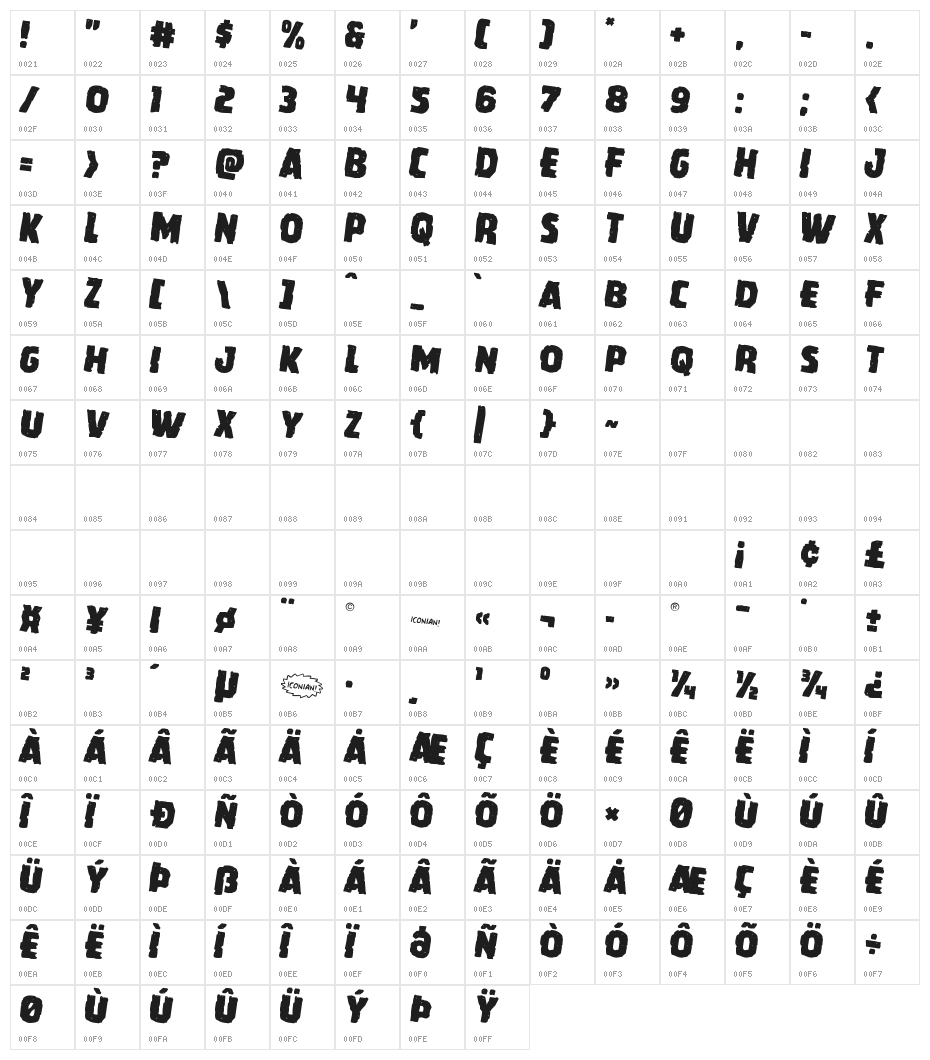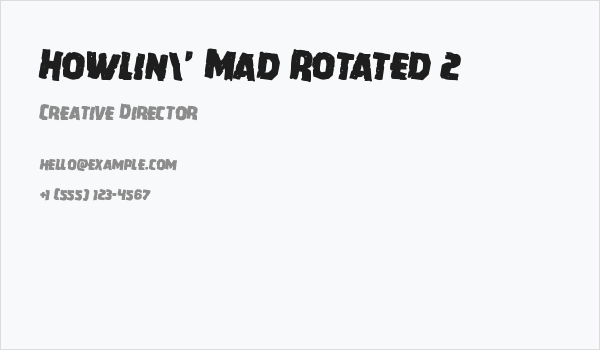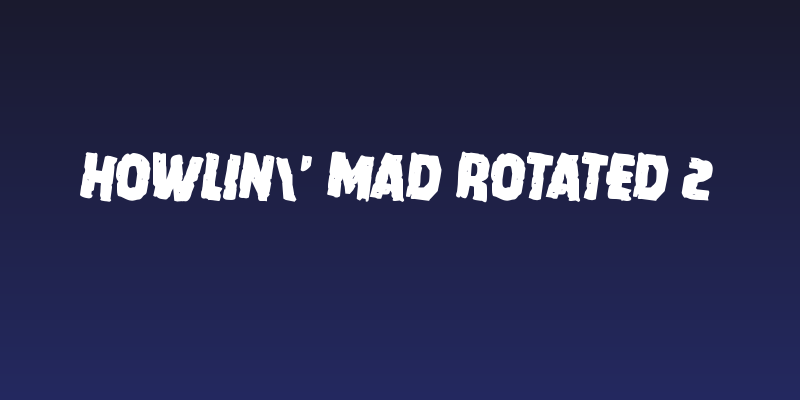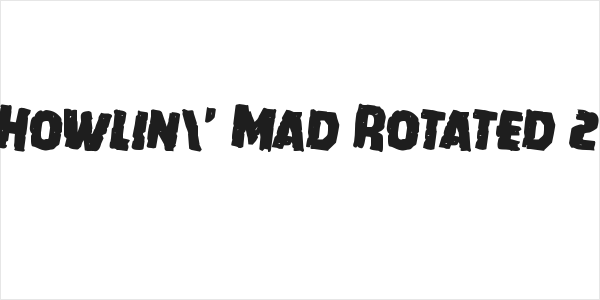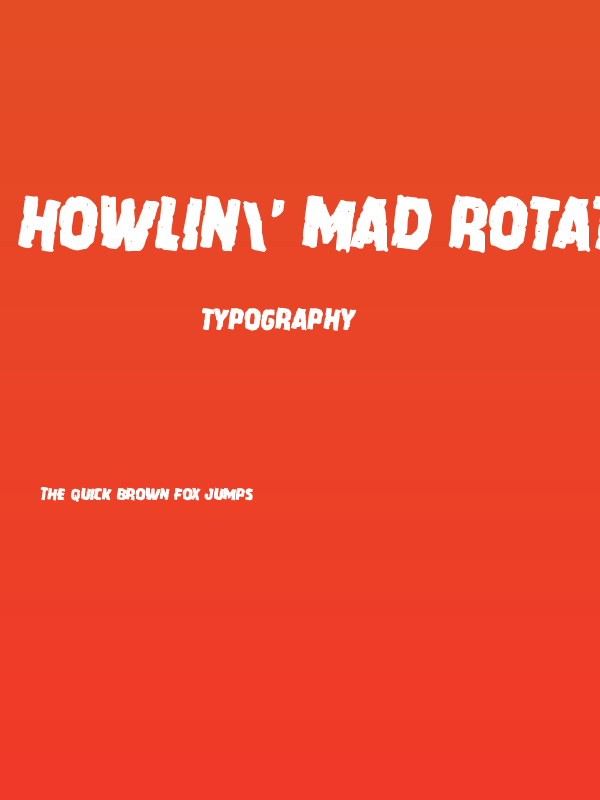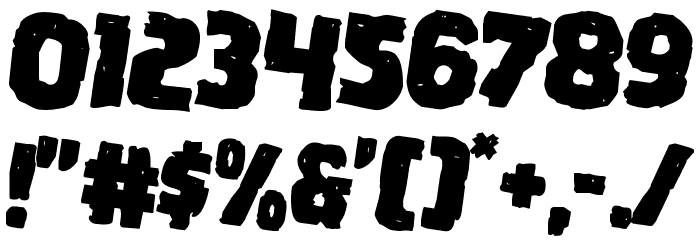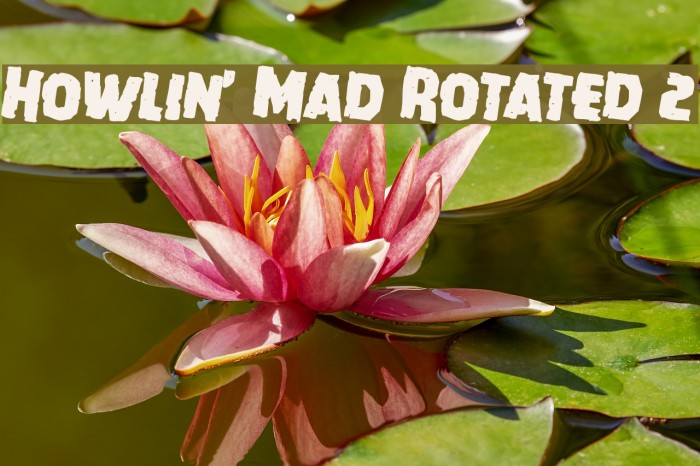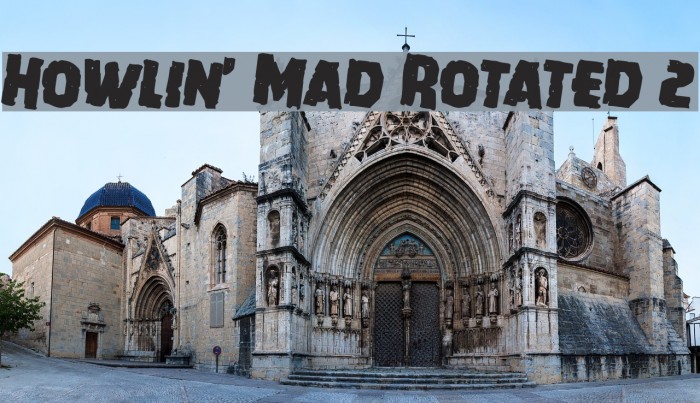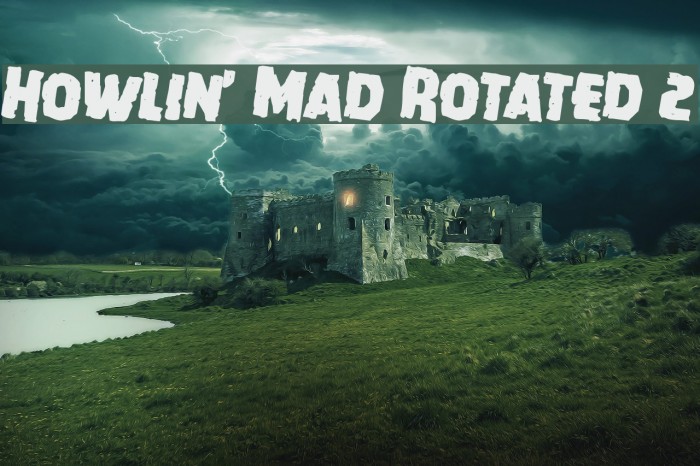
Howlin' Mad Rotated 2 Font
Howlin' Mad Rotated 2 Description
This font features a bold, rugged style with a distressed appearance, giving it a raw and energetic feel. The characters are thick and heavy, with irregular edges that create a sense of movement and dynamism. The uppercase and lowercase letters maintain a consistent weight, while the numbers and special characters follow the same bold and distressed aesthetic. This font is ideal for projects that require a strong, impactful presence, such as posters, headlines, or branding materials that aim to convey a sense of adventure or rebellion.
| Proposed Projects | Ideal for posters, headlines, branding materials, and projects needing a strong, adventurous look. |